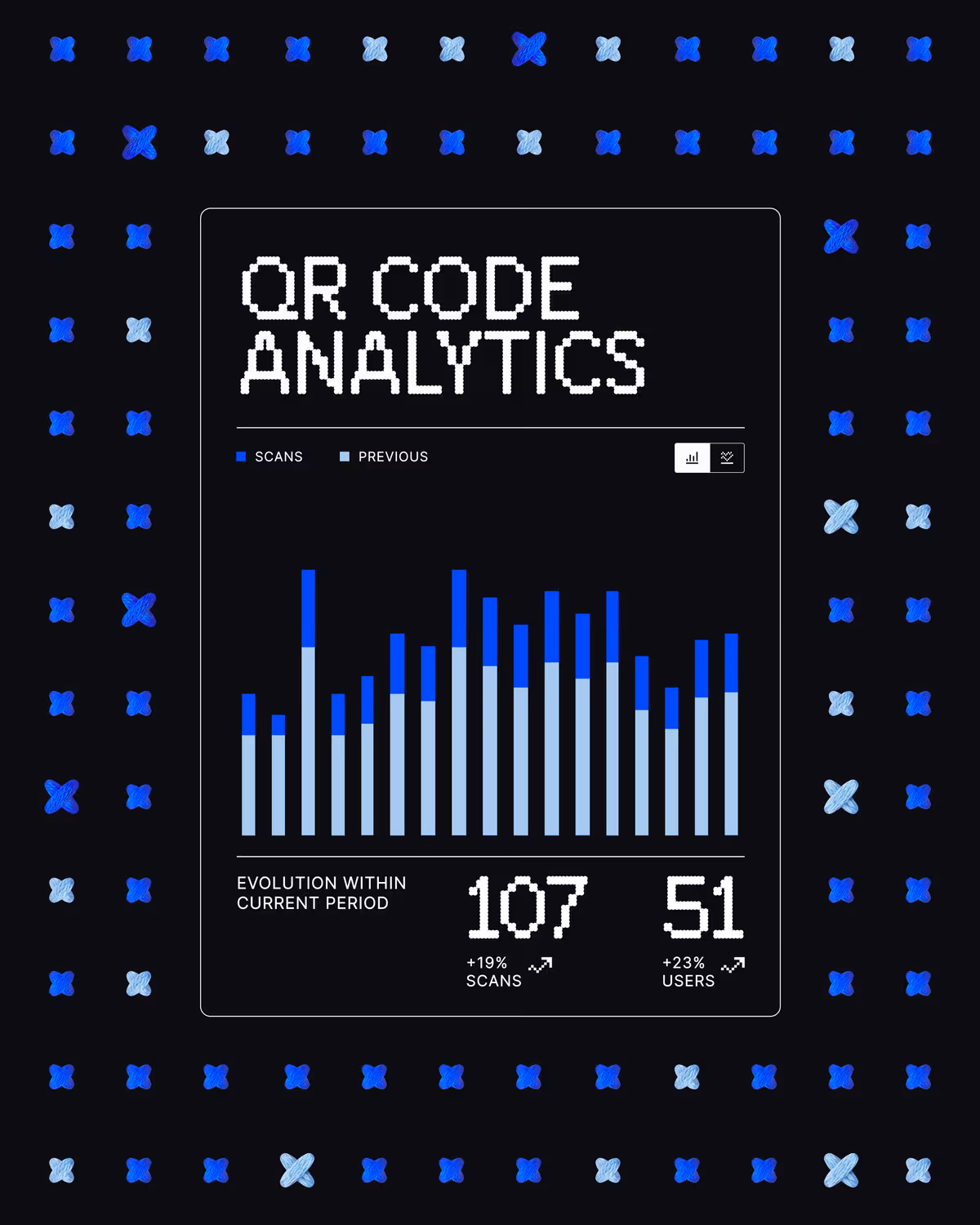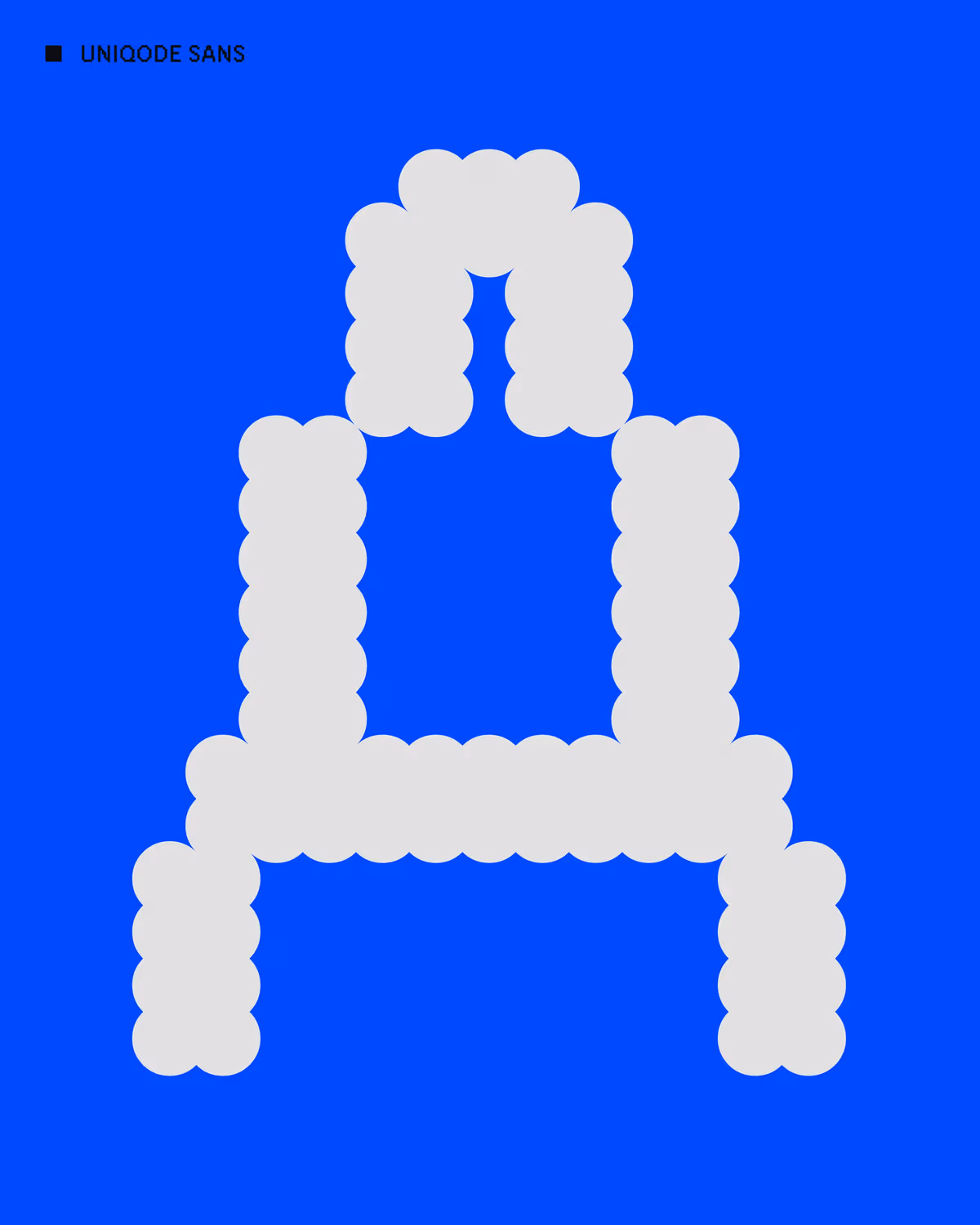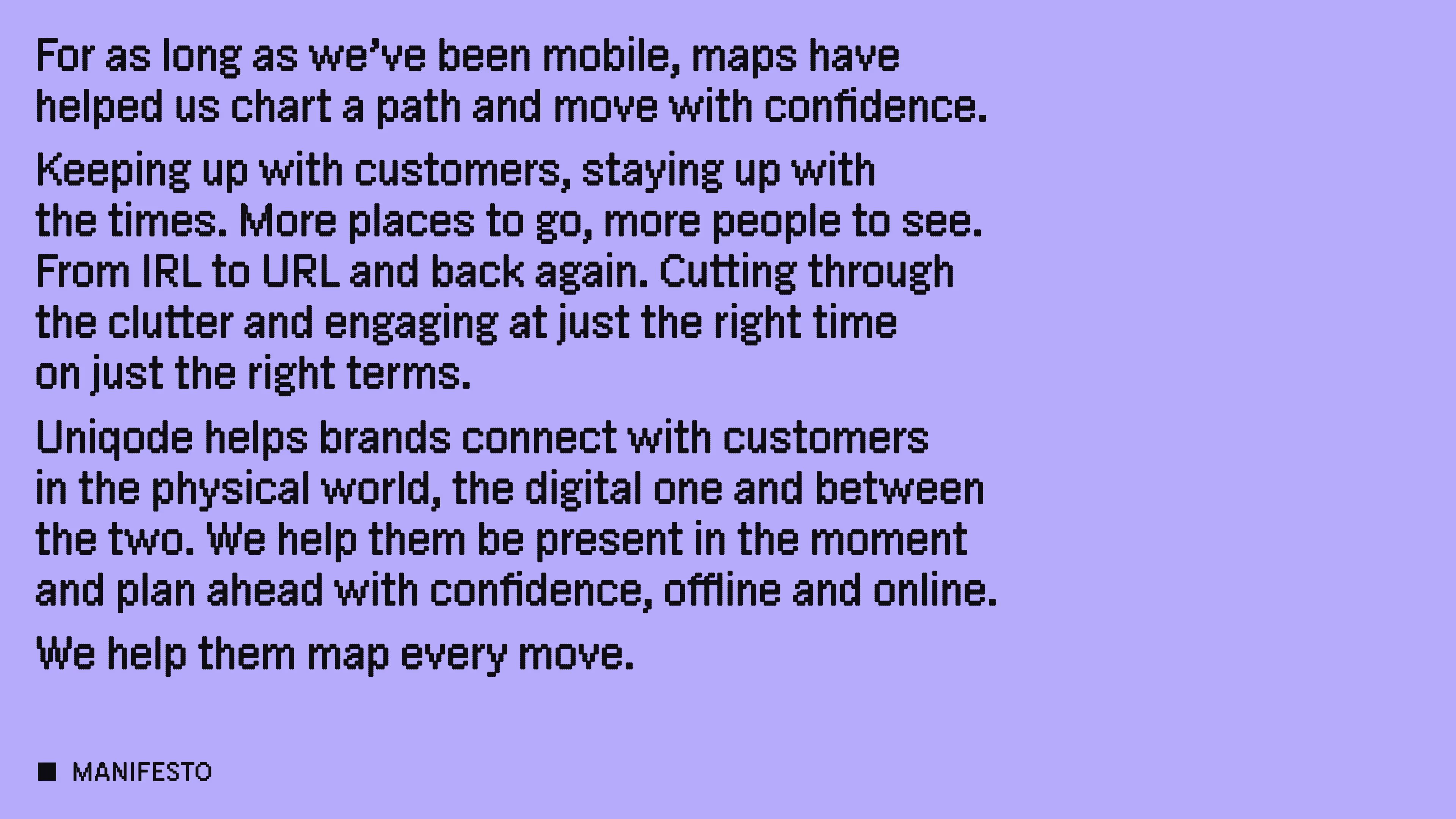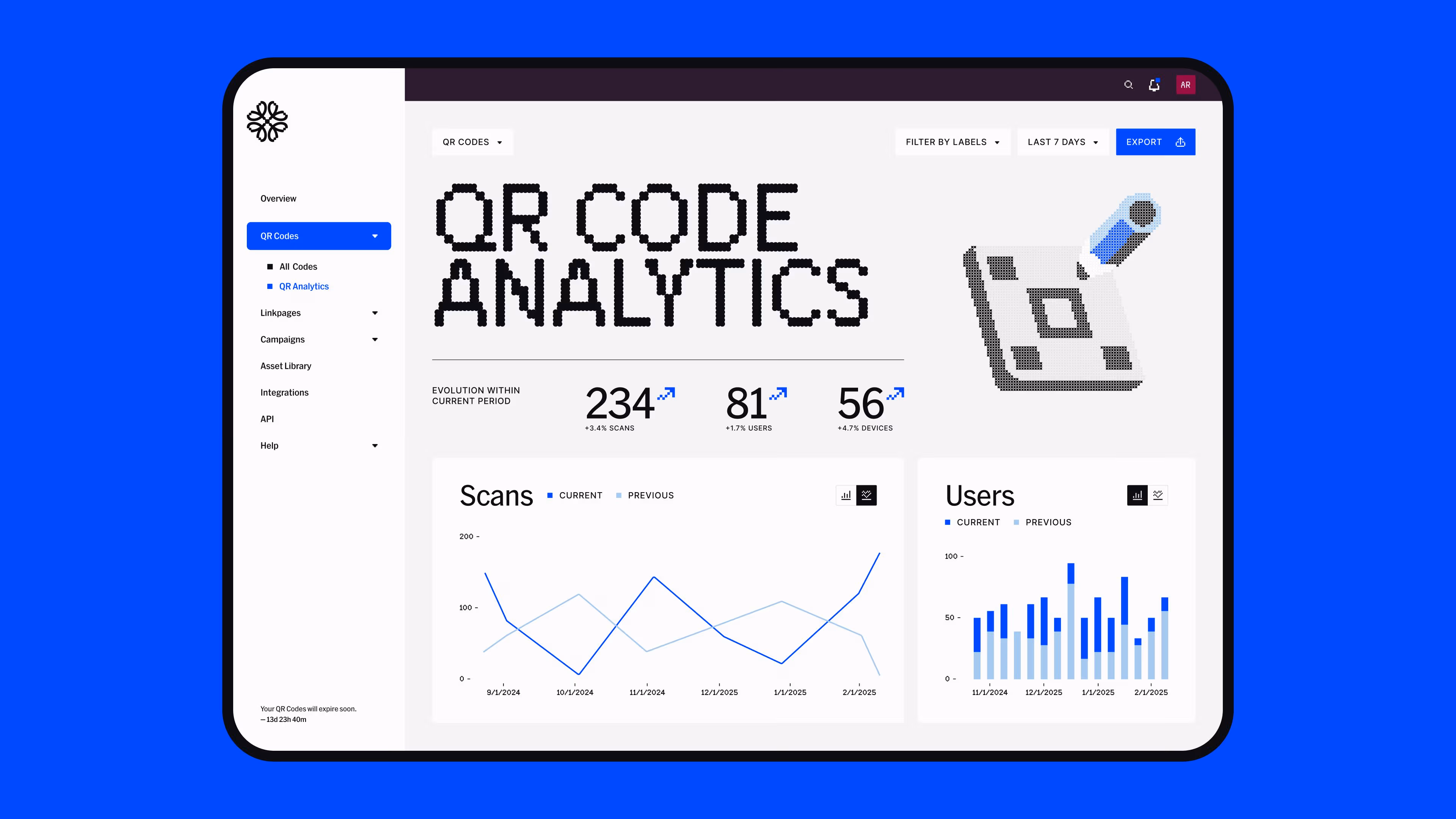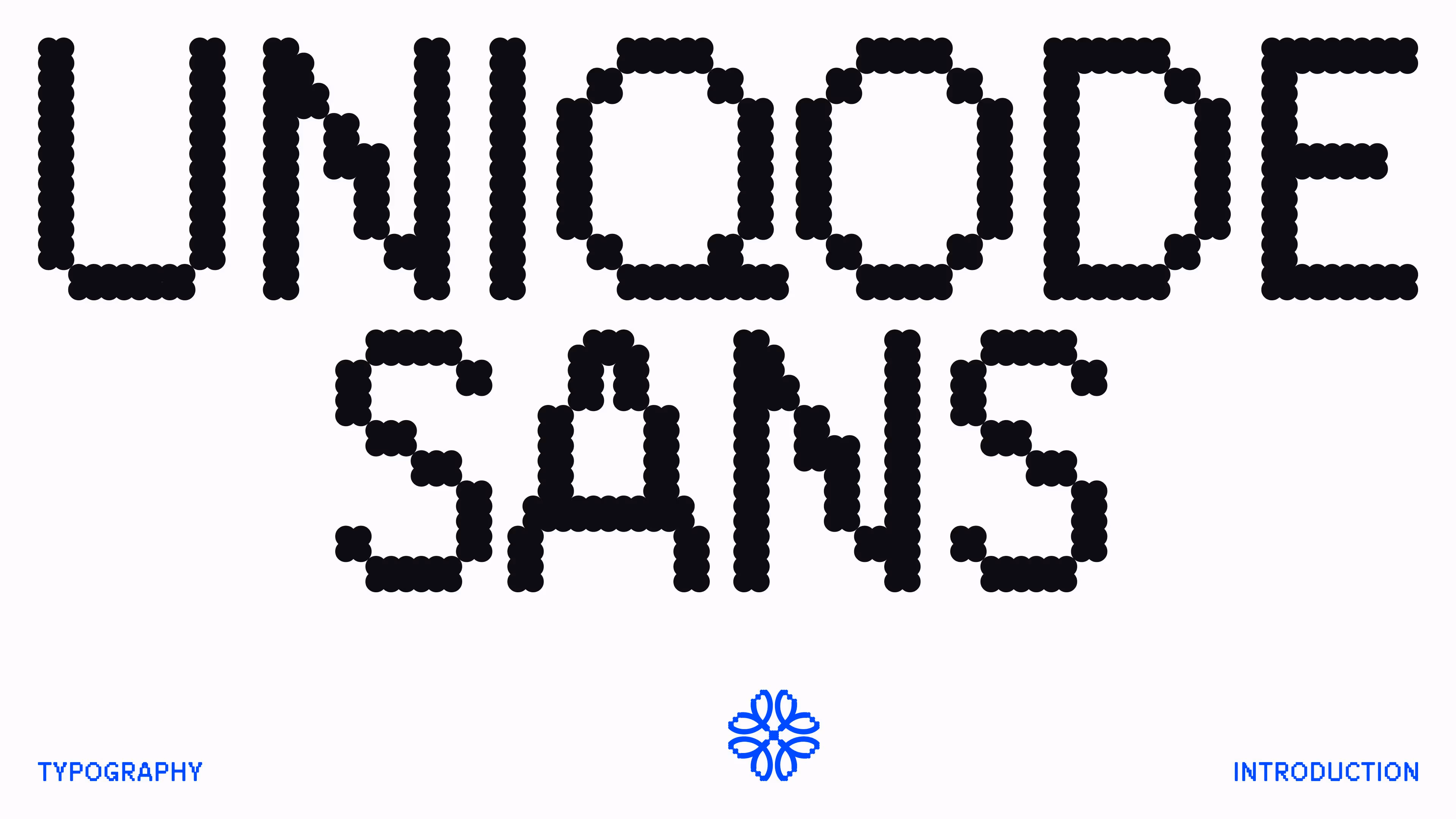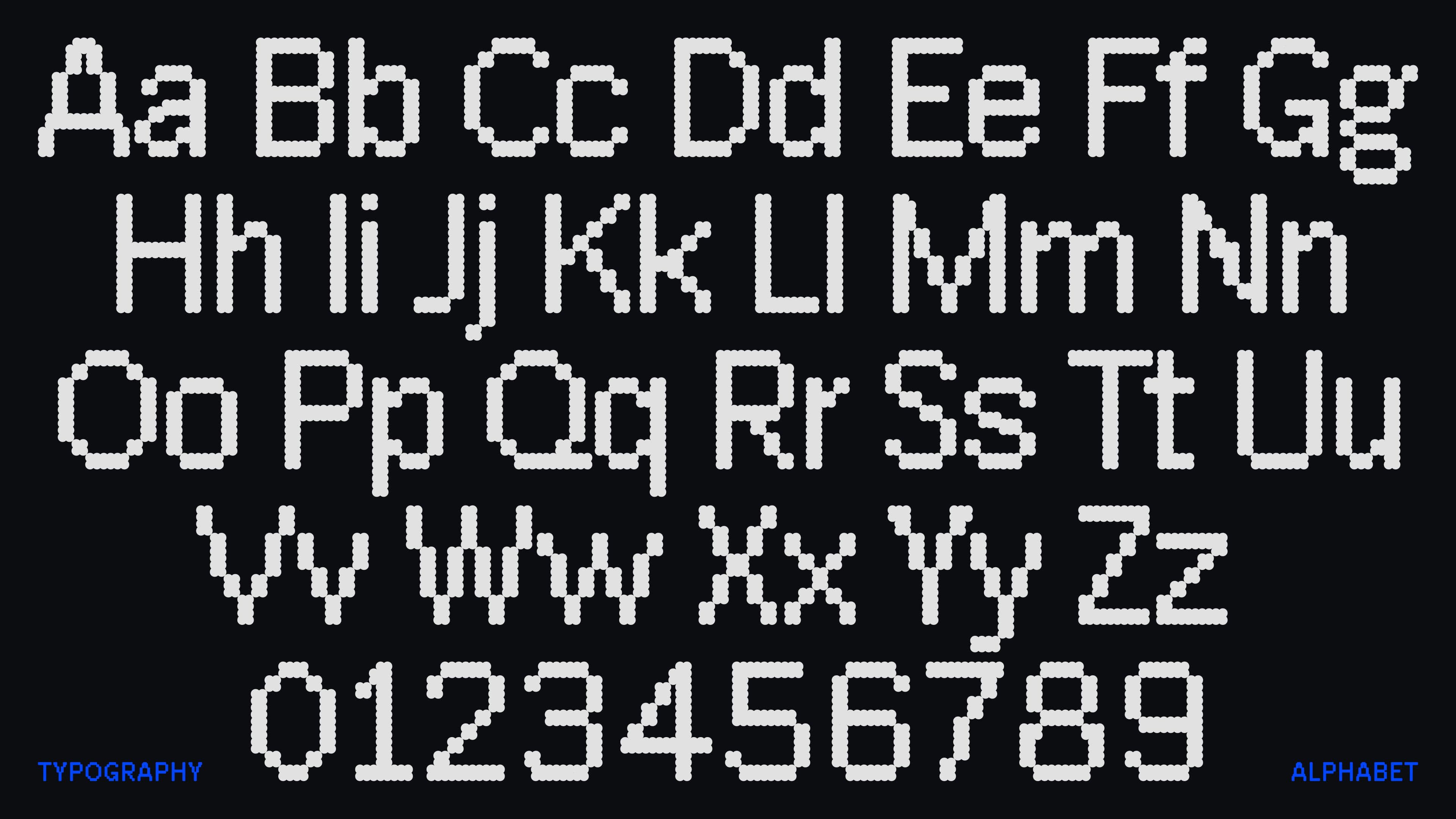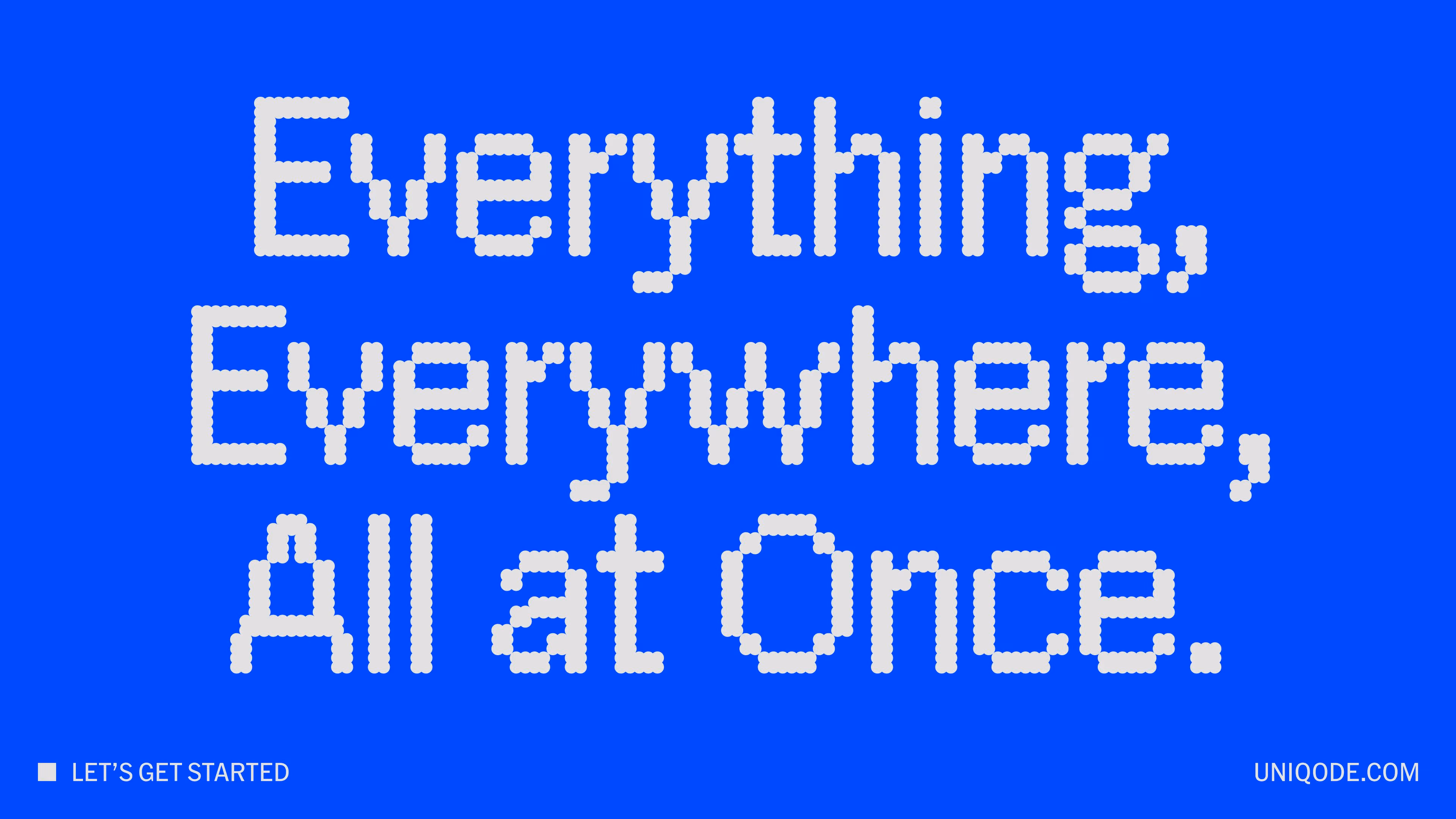
Uniqode
IRL to URL: knitting a custom typeface for Uniqode.
Uniqode, formerly Beaconstac, needed a new identity to stand out in a crowded QR code market and reflect its enterprise-ready product. Studio Koto repositioned the brand around its role as a bridge between physical and digital experiences, from IRL to URL and back again.
At the core of the identity is Uniqode Sans, a custom typeface we designed to stitch individual points into a connected canvas. Its design reflects a system of threads and nodes, echoed across patterns, motifs, and iconography. The custom typeface contributes to a visual language that feels bold and enterprise-grade, while remaining crafted and human. Used consistently across dashboards, campaigns, and sales materials, it helps create a clear and connected experience across all touchpoints.